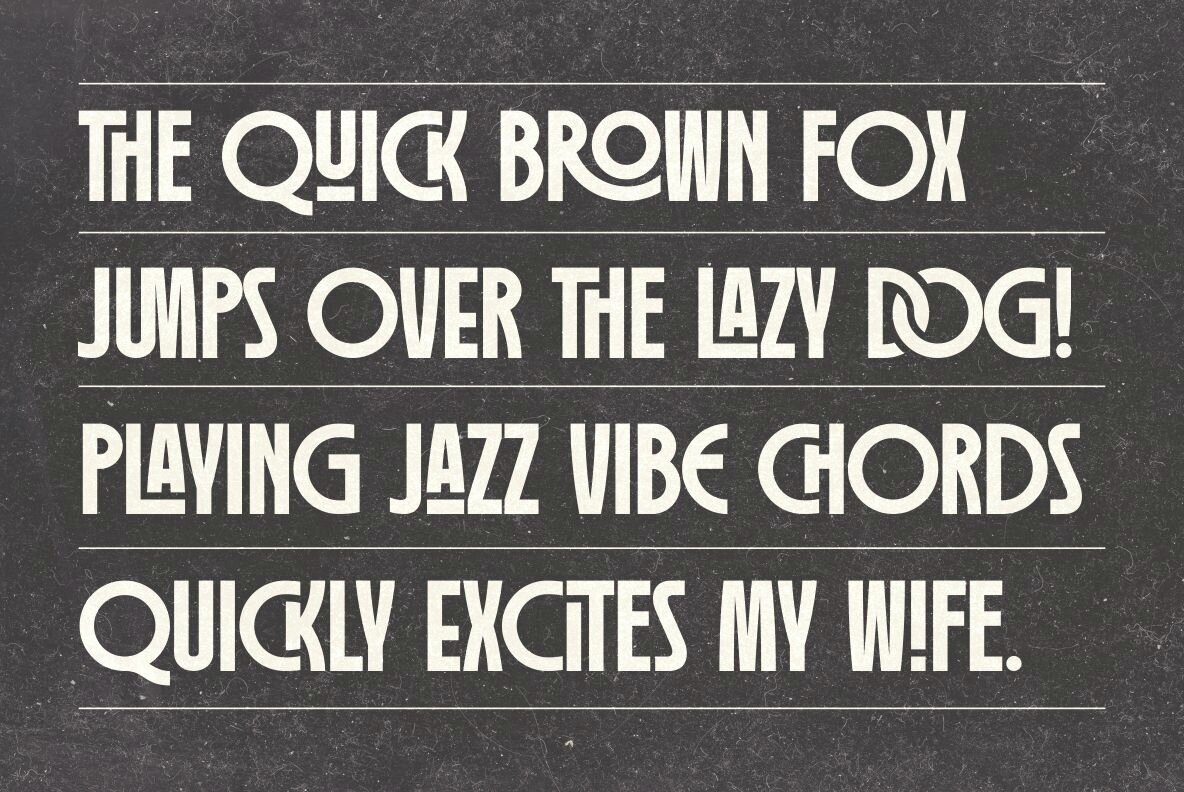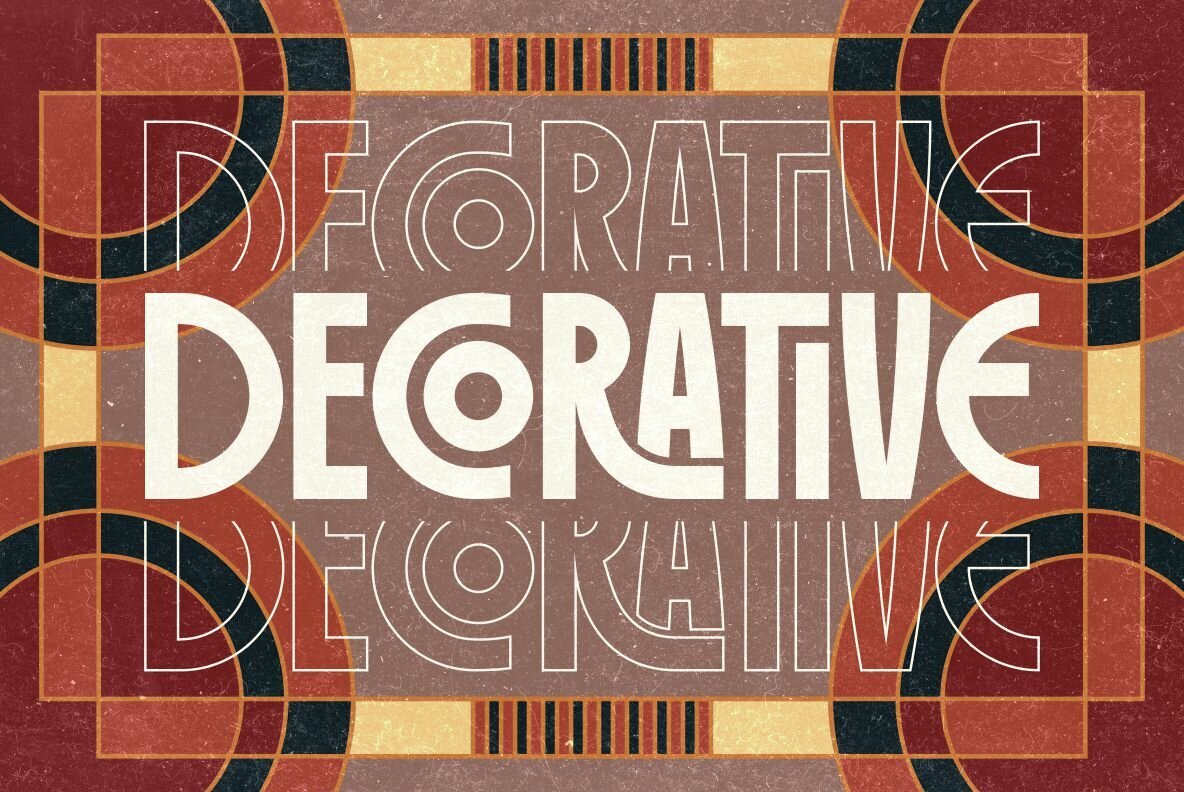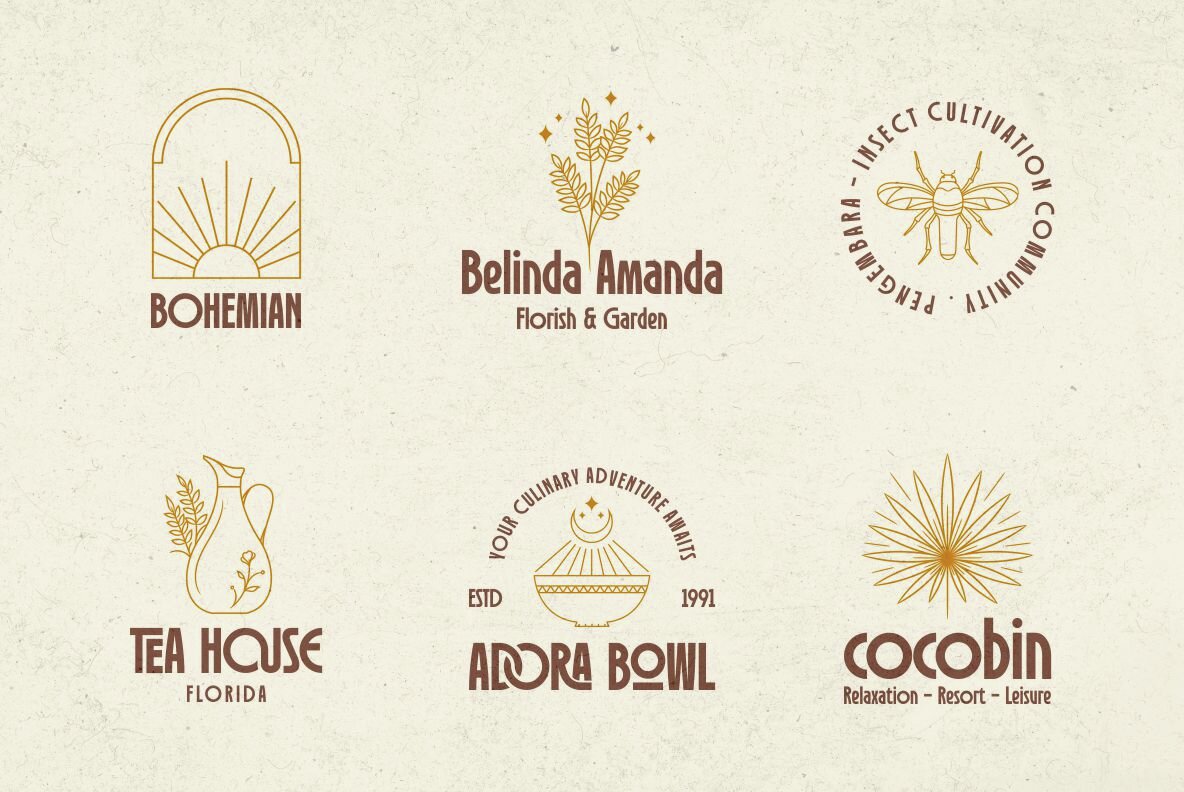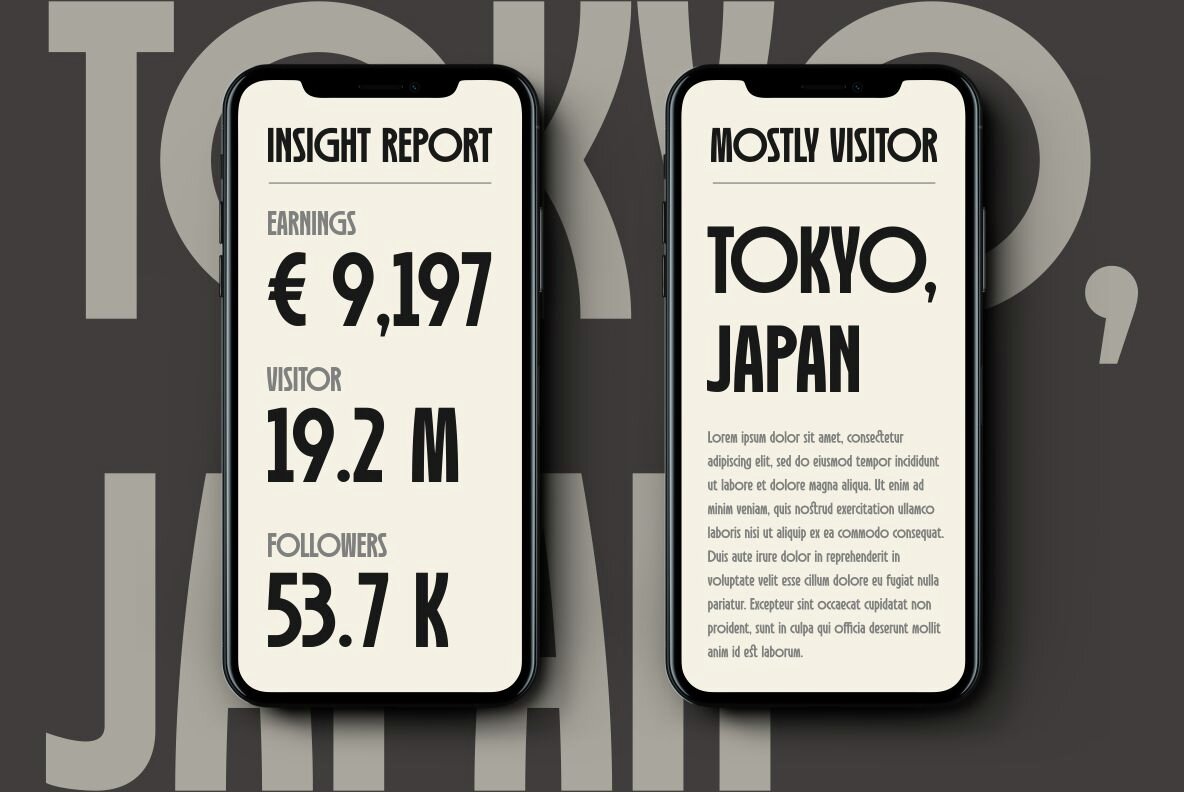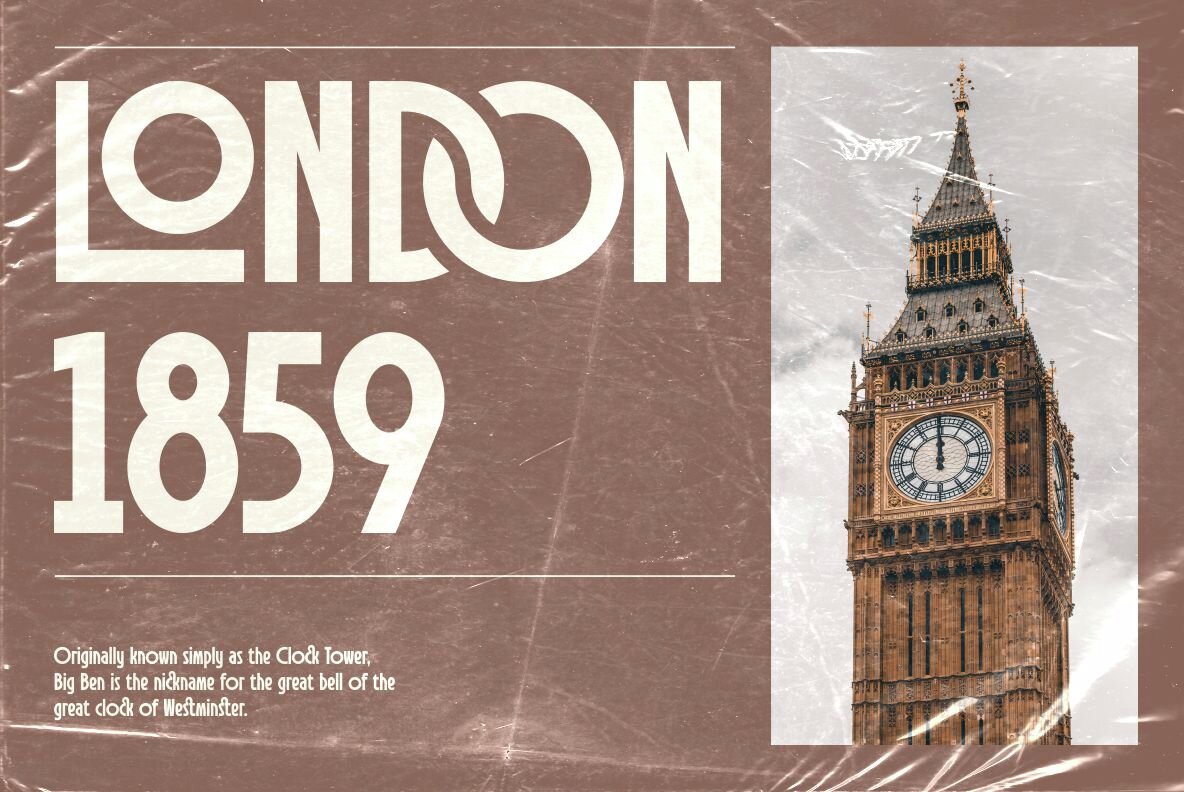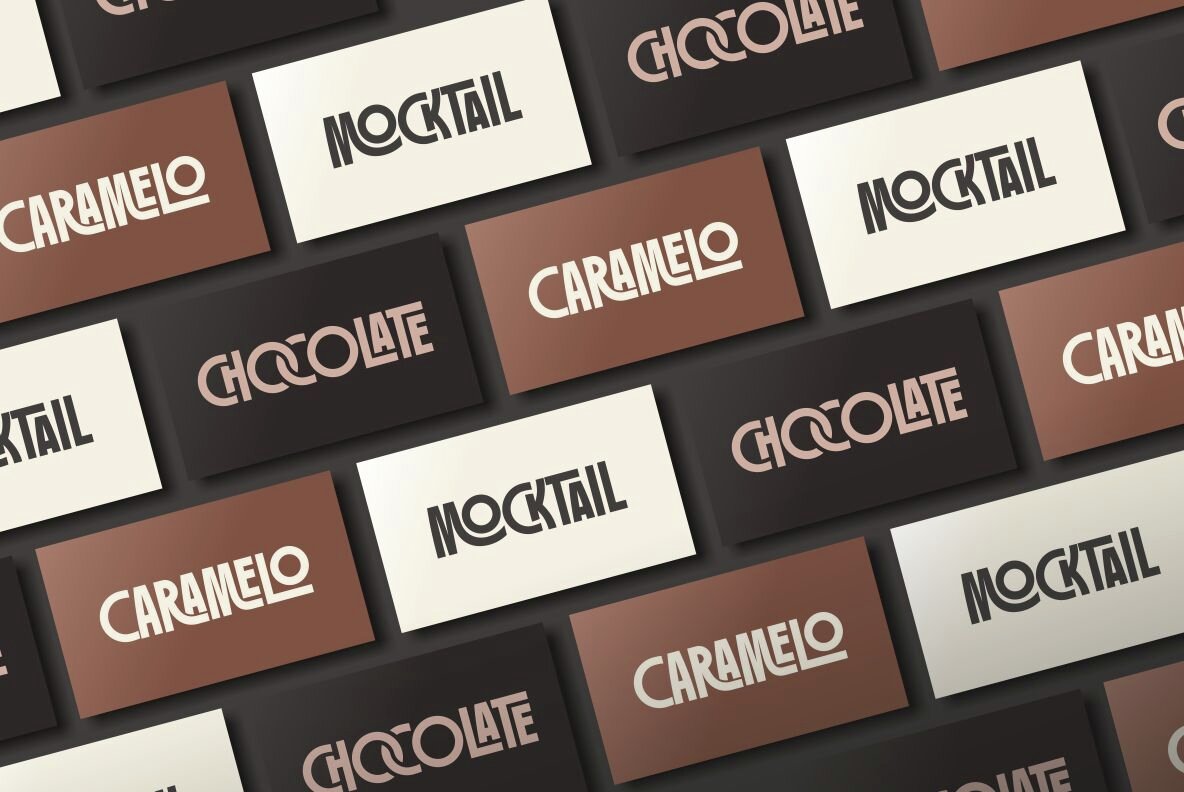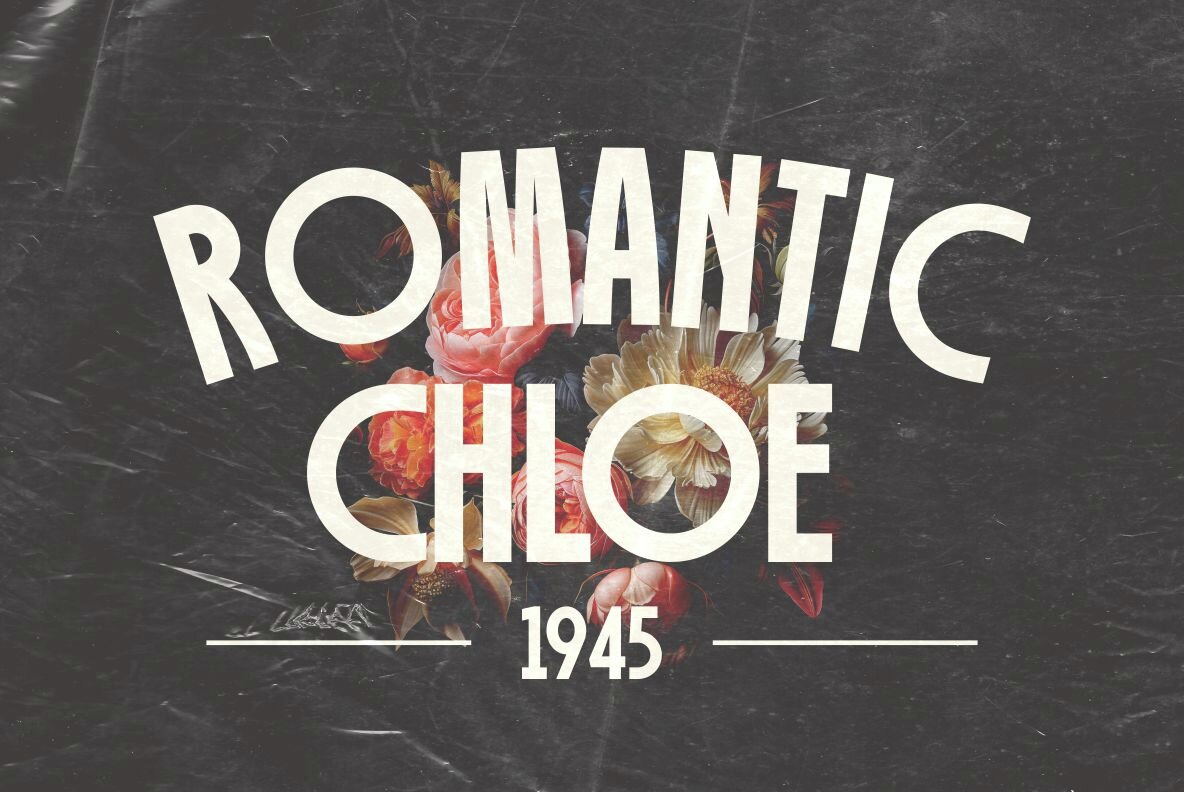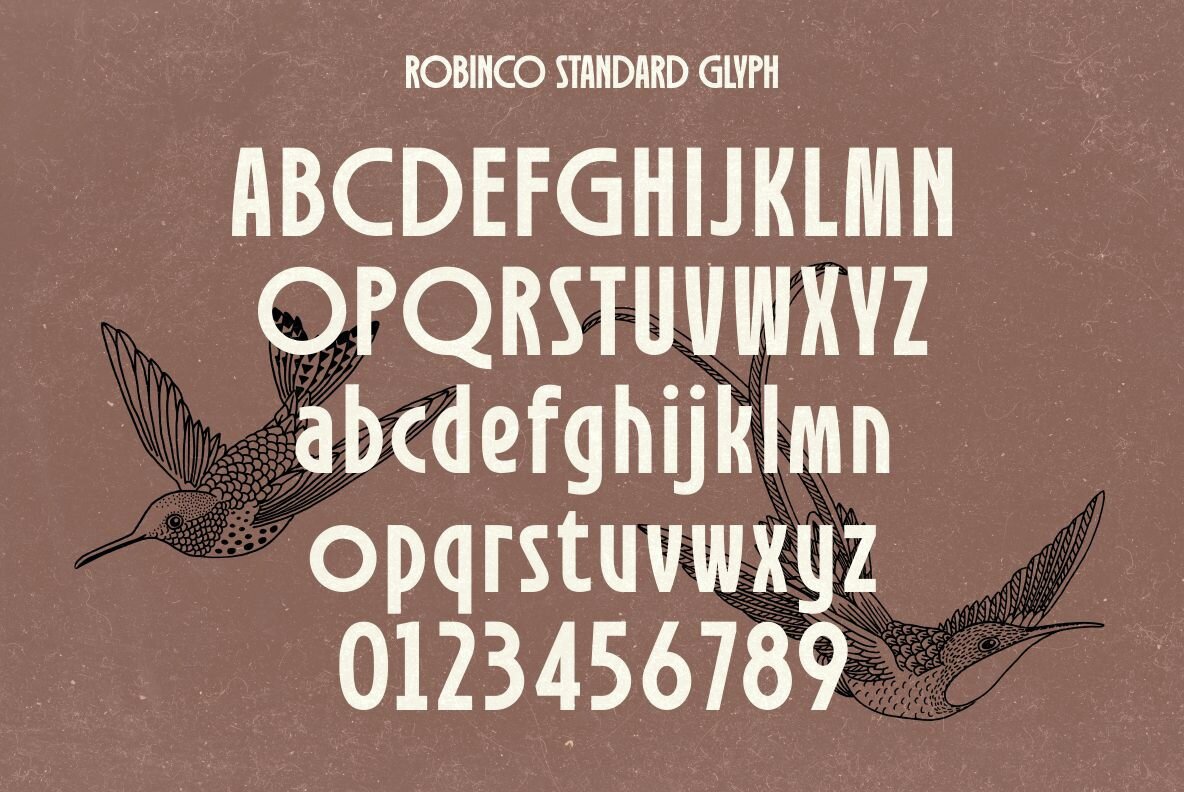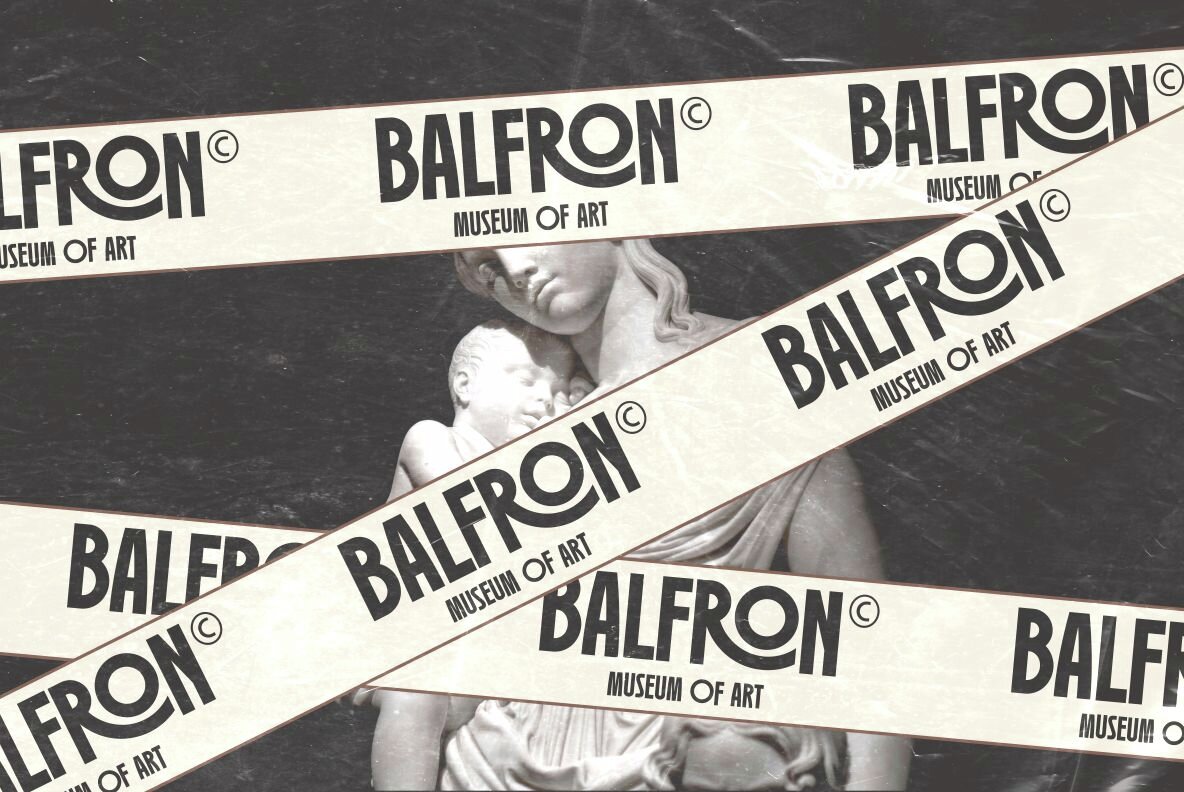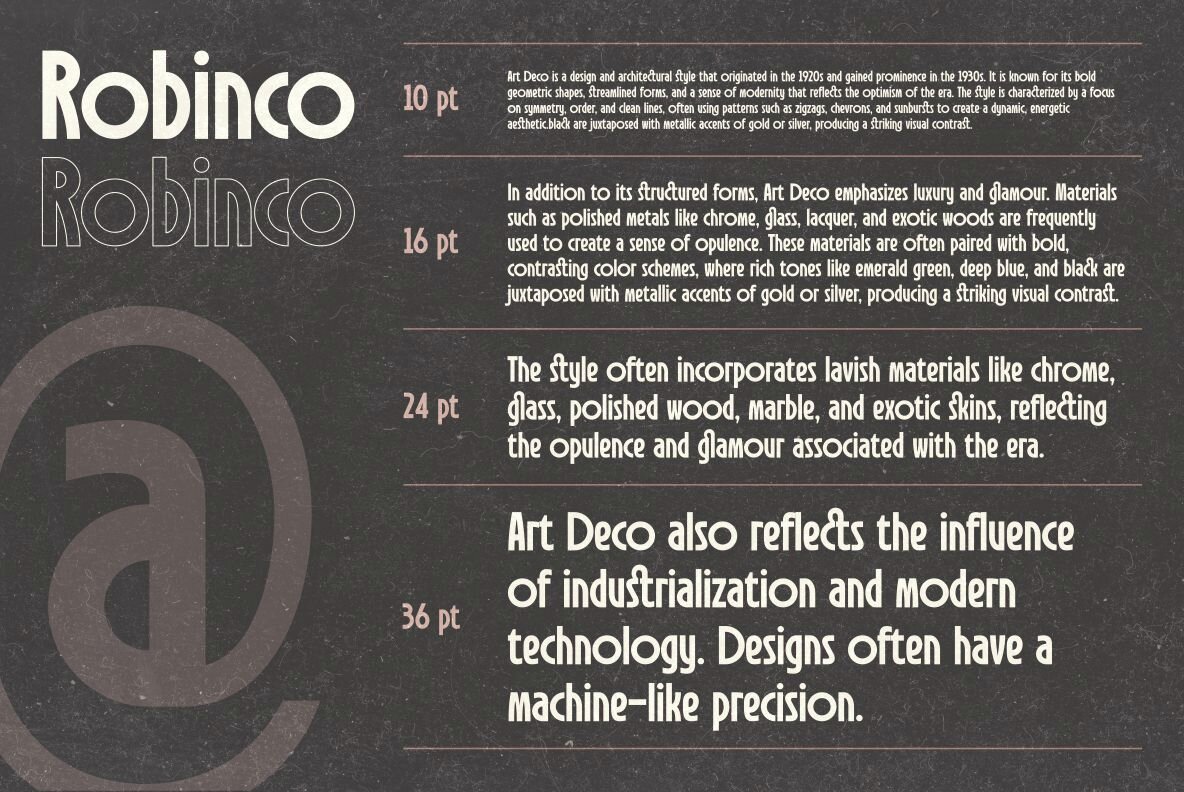
Robinco Font
Robinco
This bold sans-serif decorative font features a modern, geometric design that is perfect for display and headline purposes. Its strong, blocky letters offer a dynamic and impactful presence, making it ideal for advertising, branding, and visual identity design projects. With its clean lines and contemporary aesthetic, this font is a great choice for designers looking to create striking posters, graphics, and creative layouts.